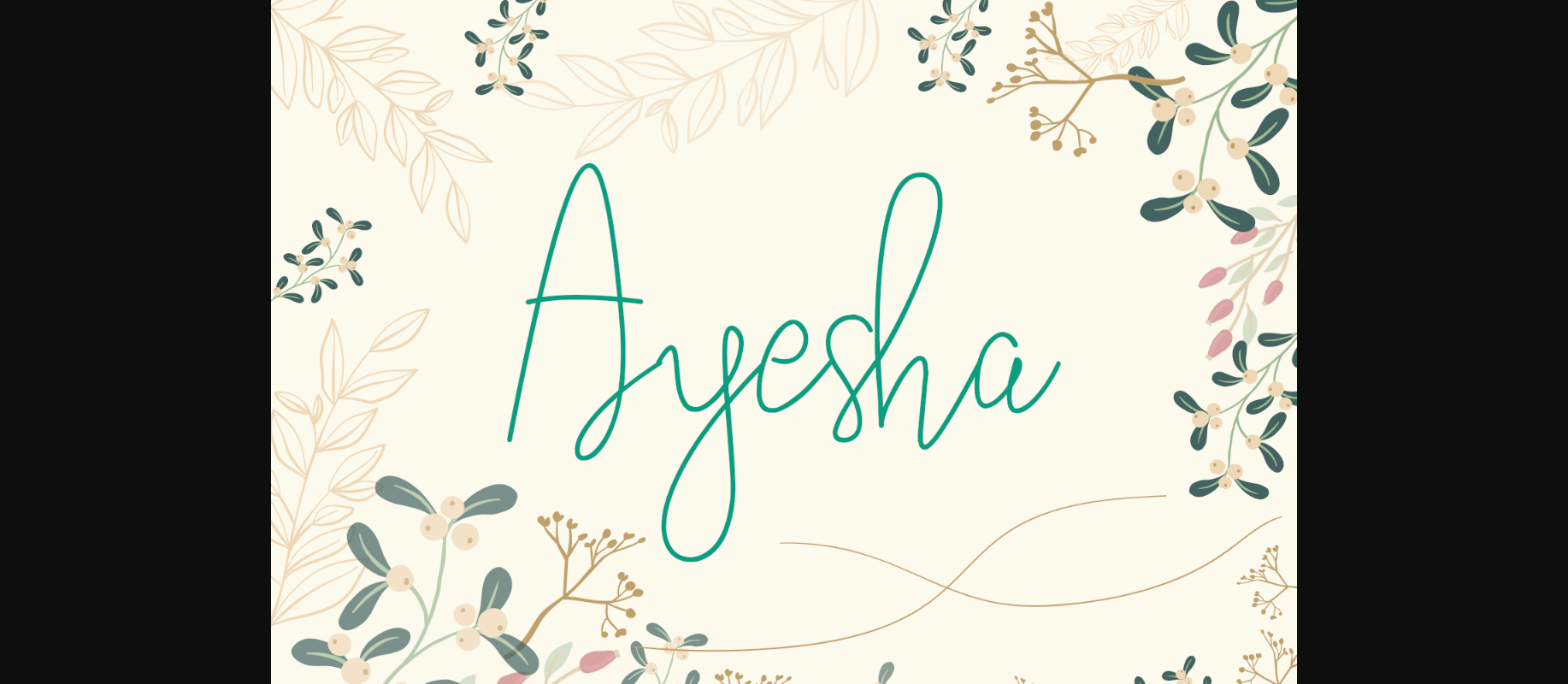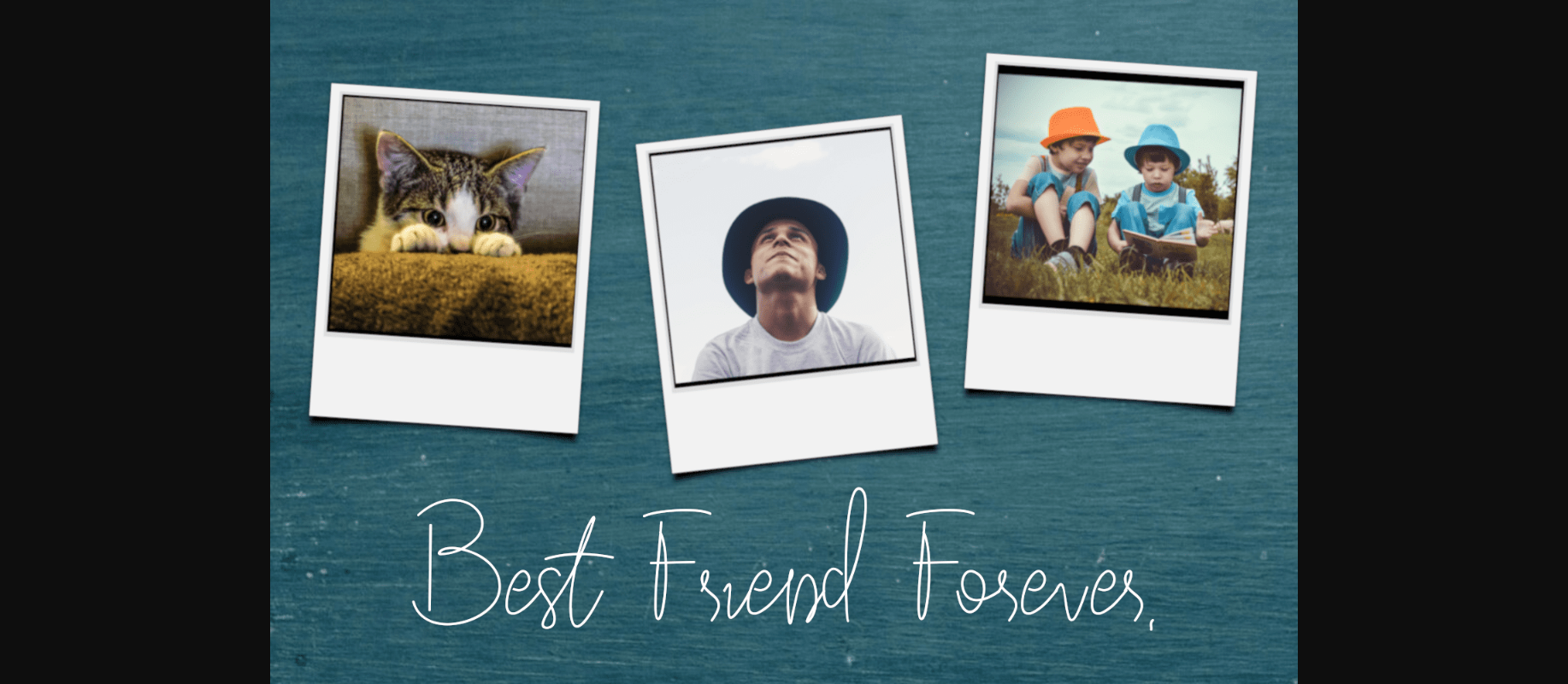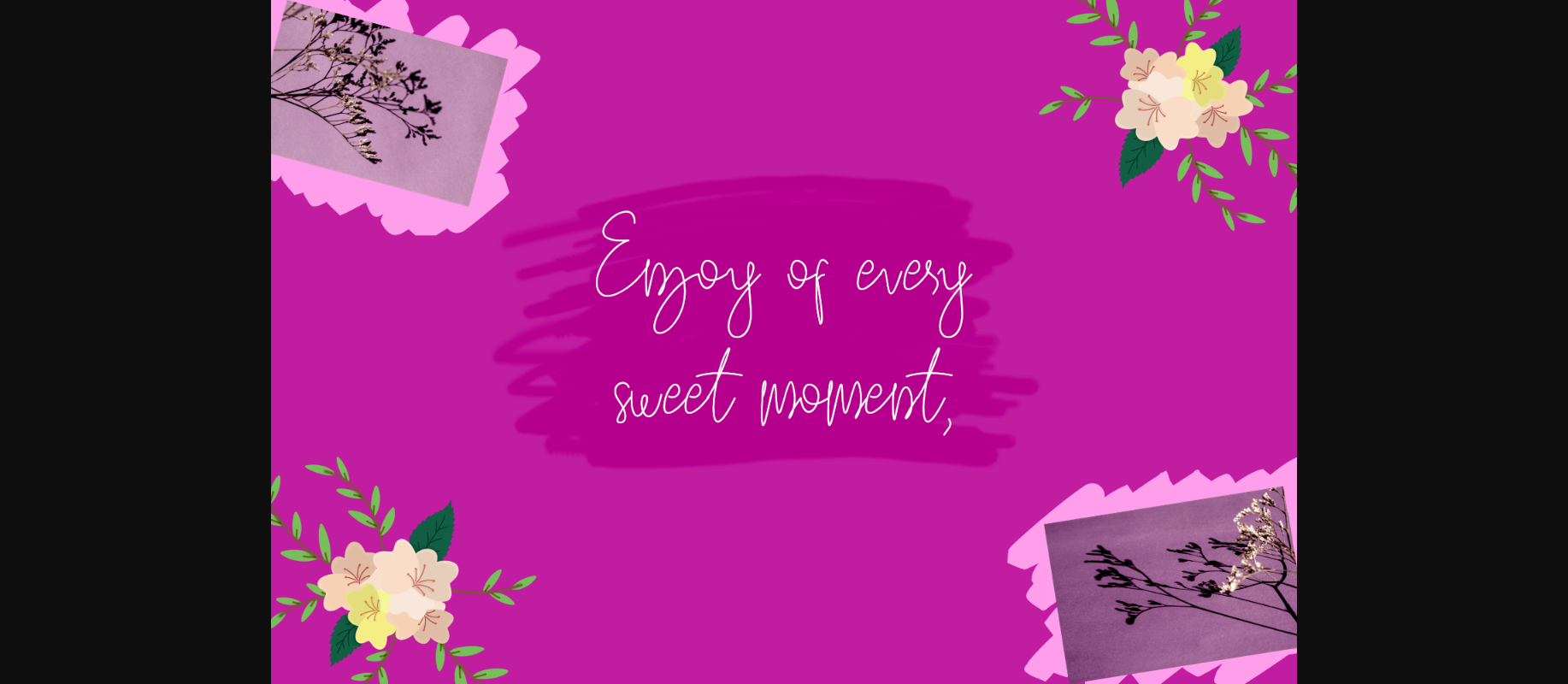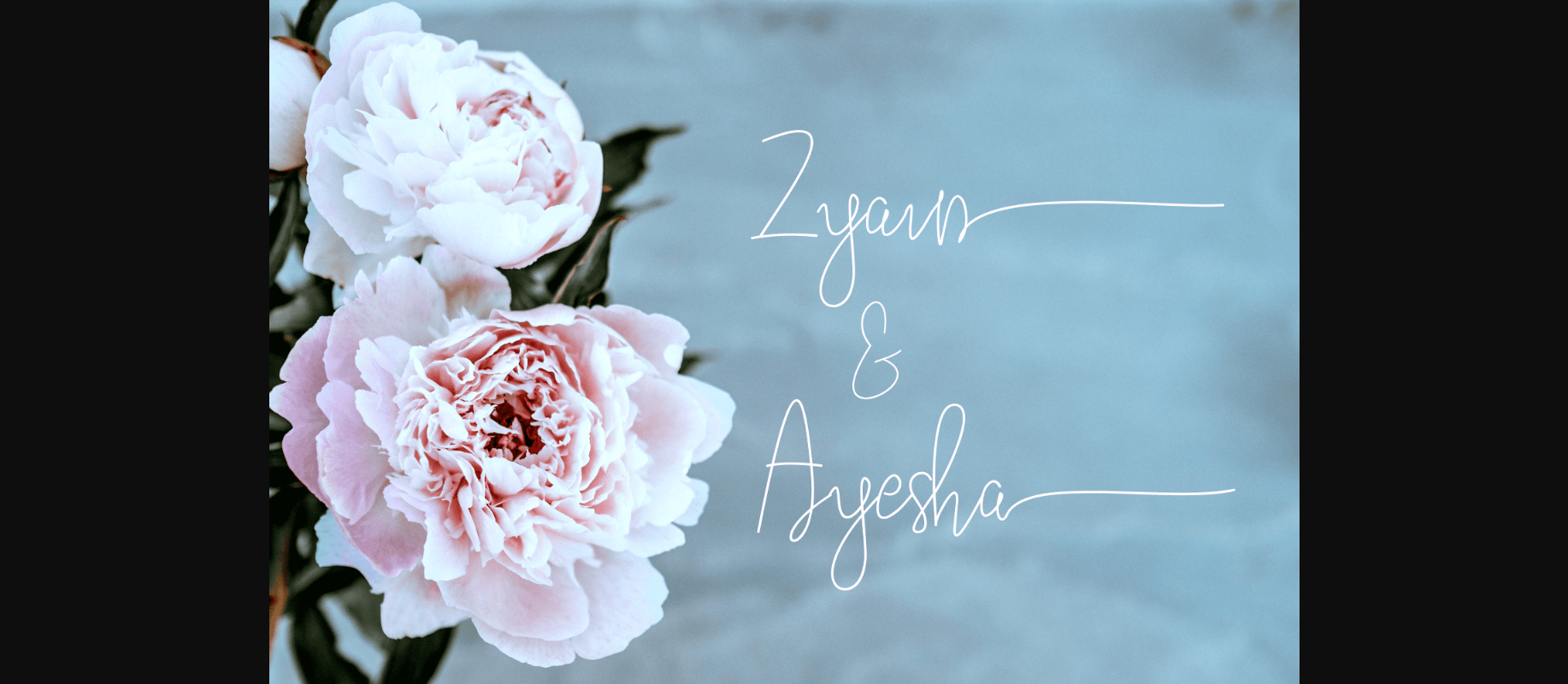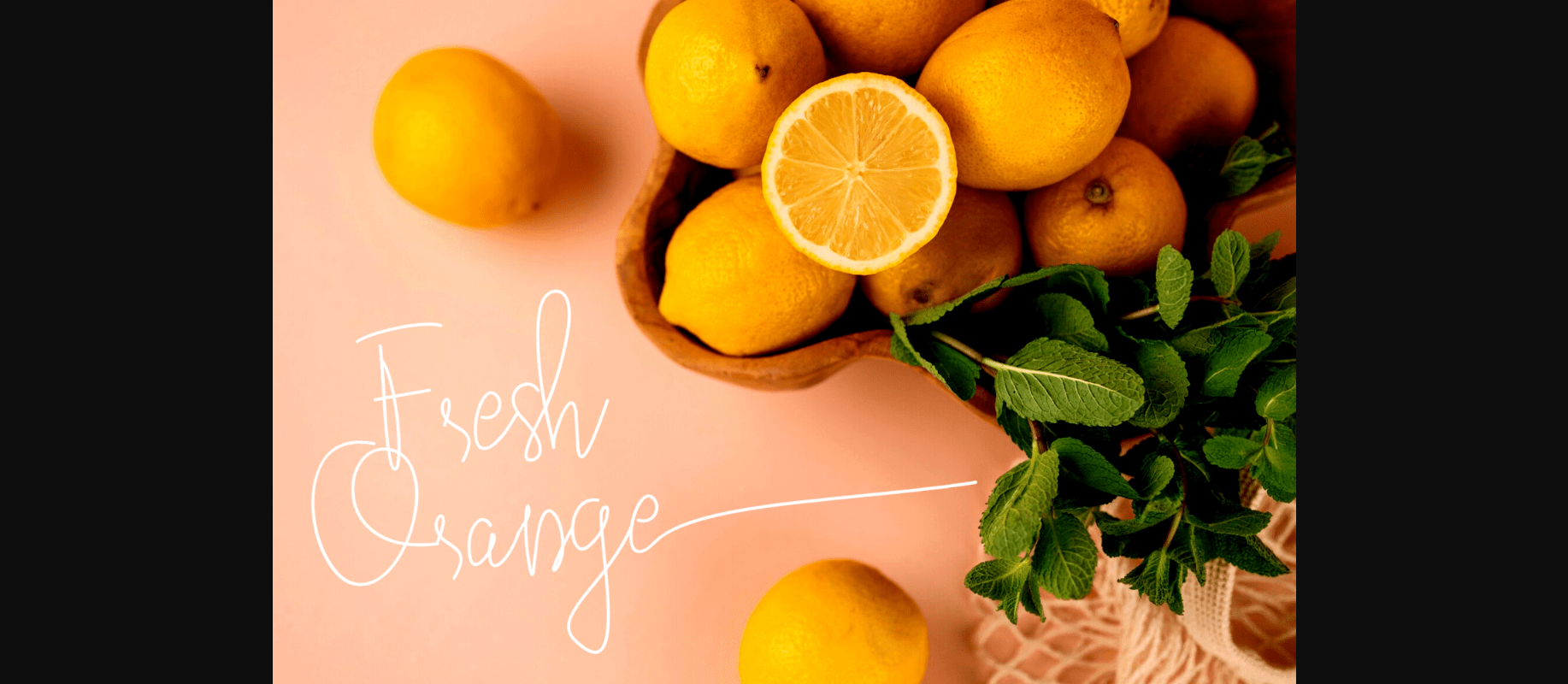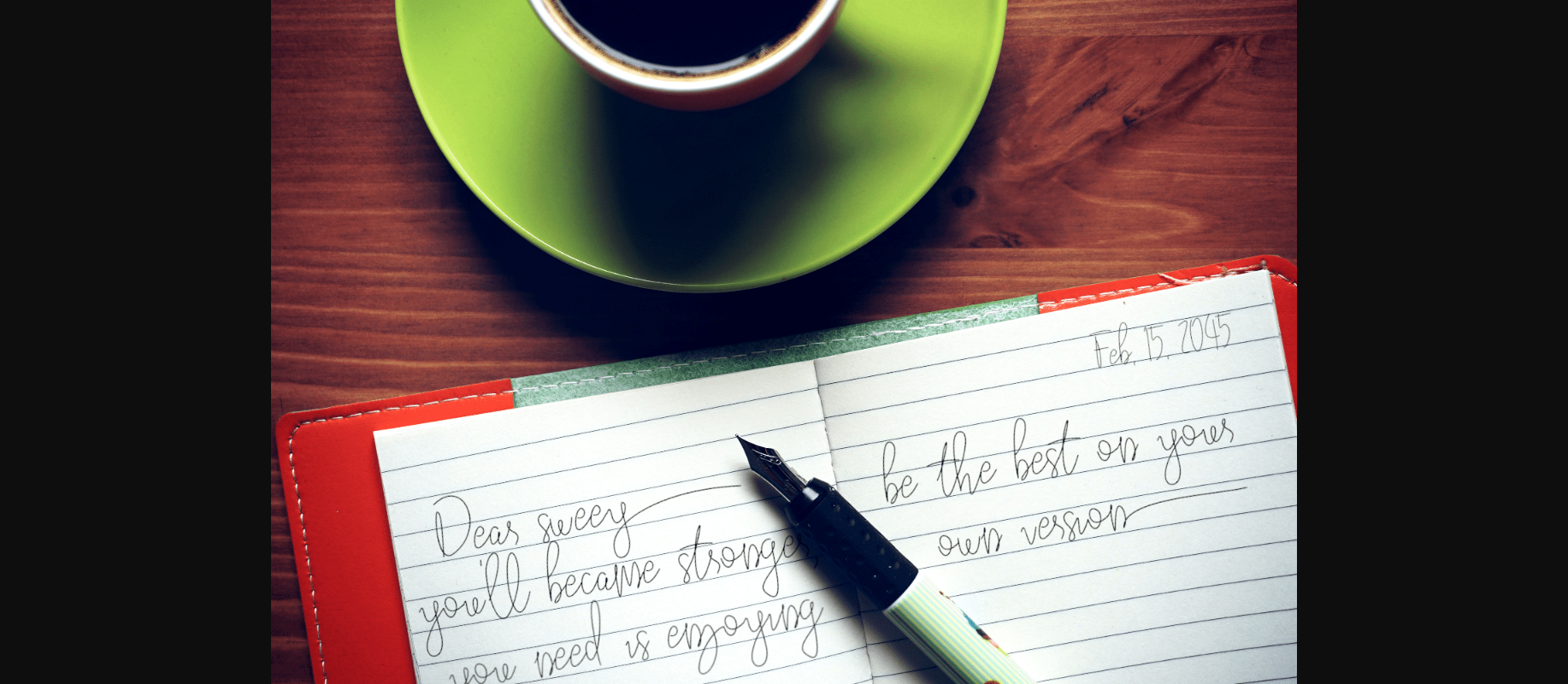
Ayesha Font
About Ayesha Font
Ayesha is a fun and friendly handwritten font. Use it to turn any design idea into a true standout. Get inspired by its unique charm and create lovely designs.